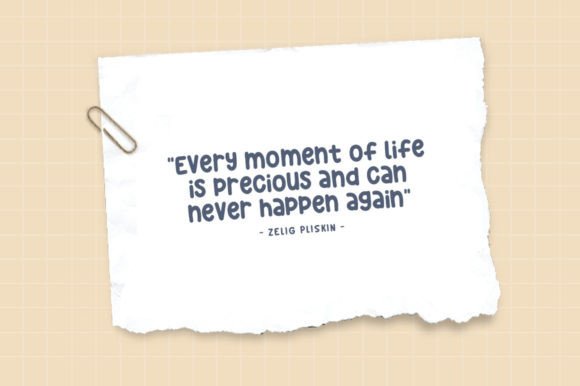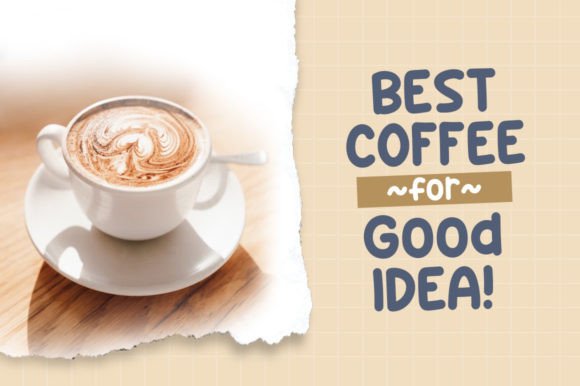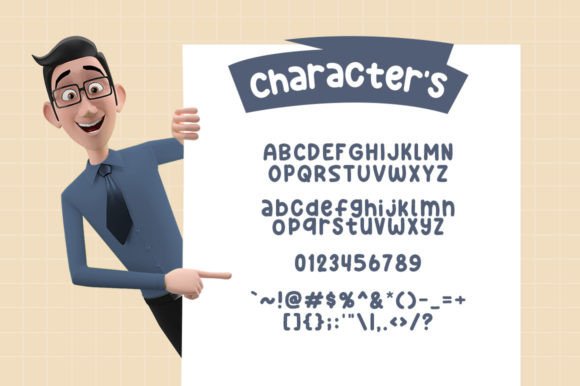
Introduction to Small Print Font
Do you remember that moment when you’re working on a creative project, and you’re trying to decide on the perfect font to make it stand out? The blank page stares back at you, waiting for inspiration to strike. For designers, finding the right font can be a game-changer. It’s not just about aesthetics; it’s about conveying the message and tone you want to convey to your audience.
Enter Small Print Font, a modern and fancy display font that’s sure to elevate your designs. Whether you’re creating a poster, logo, magazine, book cover, banner, or any other visual project, this freebie is a valuable addition to your design resource library. With its sleek and sophisticated look, Small Print Font is perfect for designers who want to make a lasting impression.
Key Features of Small Print Font
- High-quality font design ideal for creative projects, such as book covers, posters, and advertisements.
- Features a transparent background, making it easy to overlay on images or use as a standalone design element.
- Includes a range of styles and weights, providing versatility for different design applications.
- Designed to be easily scalable, allowing users to adjust the font size without compromising its quality.
Honest Review: Small Print Font
As a designer, I’m always on the lookout for high-quality design resources that can elevate my creative projects. Recently, I came across the Small Print Font, and I’m excited to share my honest review.
- ✨ Clear and legible text: The font is designed specifically for small print, making it perfect for use in tight spaces or on transparent backgrounds.
However, I do have a few limitations to mention:
- ⚠️ Limited font styles: The font only comes in a single style, which may not be ideal for designers who need a range of font styles for their project.
- ⚠️ Not ideal for large-scale use: While the font is great for small print, it may not be suitable for use in large-scale designs or headings.
Overall, I’m impressed with the Small Print Font. It’s a high-quality design resource that can be a valuable addition to any designer’s toolkit. While it may have some limitations, it’s a great option for designers working on creative projects that require a clear and legible text.
The Small Print Font is commonly used in a variety of applications, including:
- Presentations and slides
- Documents and reports
- Posters and flyers
- Brochures and catalogs